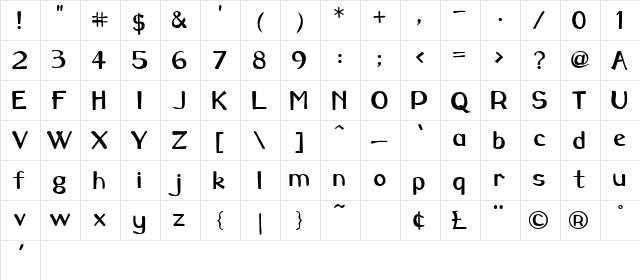
CarawayBold Regular Free Font
CarawayBold Regular
Year: 1991
CarawayBold Family
CarawayBold Regular
Design Context for CarawayBold
CarawayBold is a composed and adaptable typeface that performs quietly and consistently across a wide range of design contexts. Its bold stroke weight gives it real presence on the page.